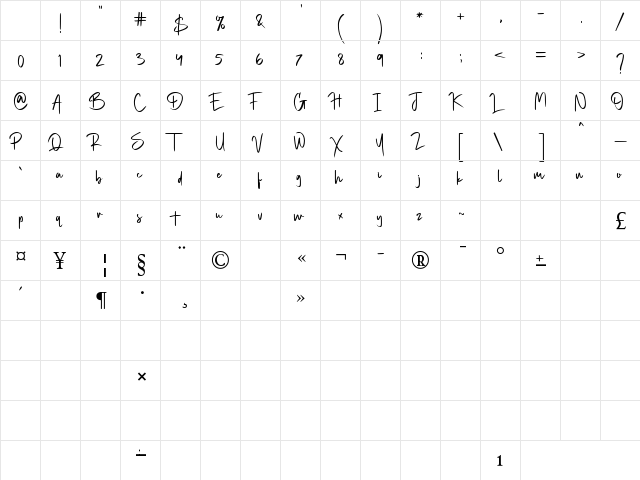
Complete Marietta Sussafe Regular glyph index. Displaying only characters natively supported by Marietta Sussafe Regular font.
Marietta Sussafe is a composed and adaptable typeface that performs quietly and consistently across a wide range of design contexts.